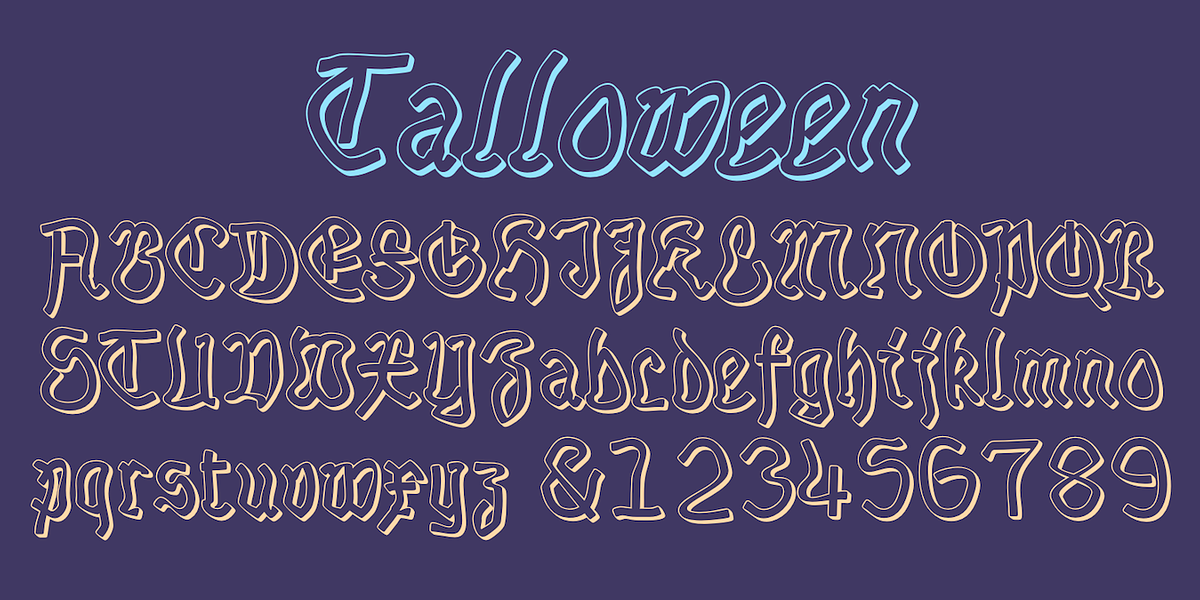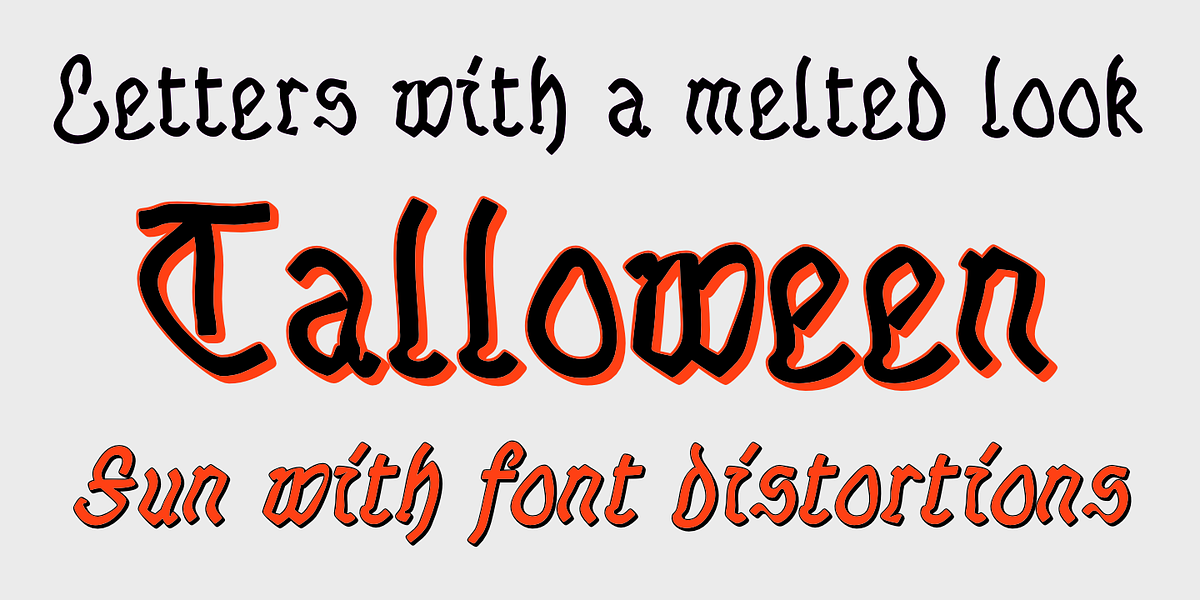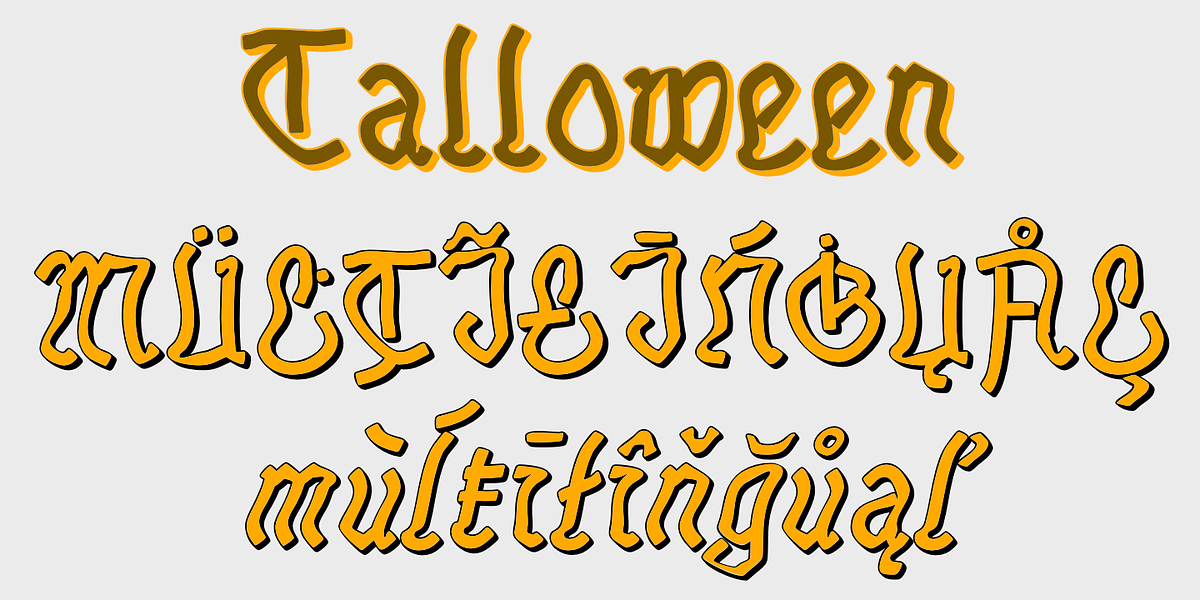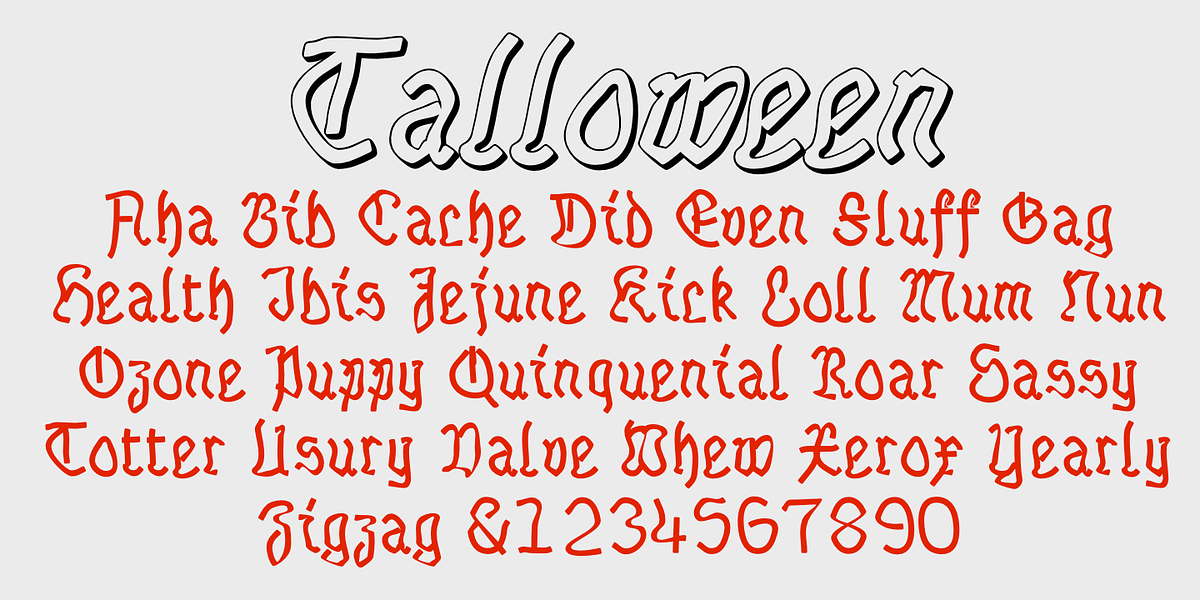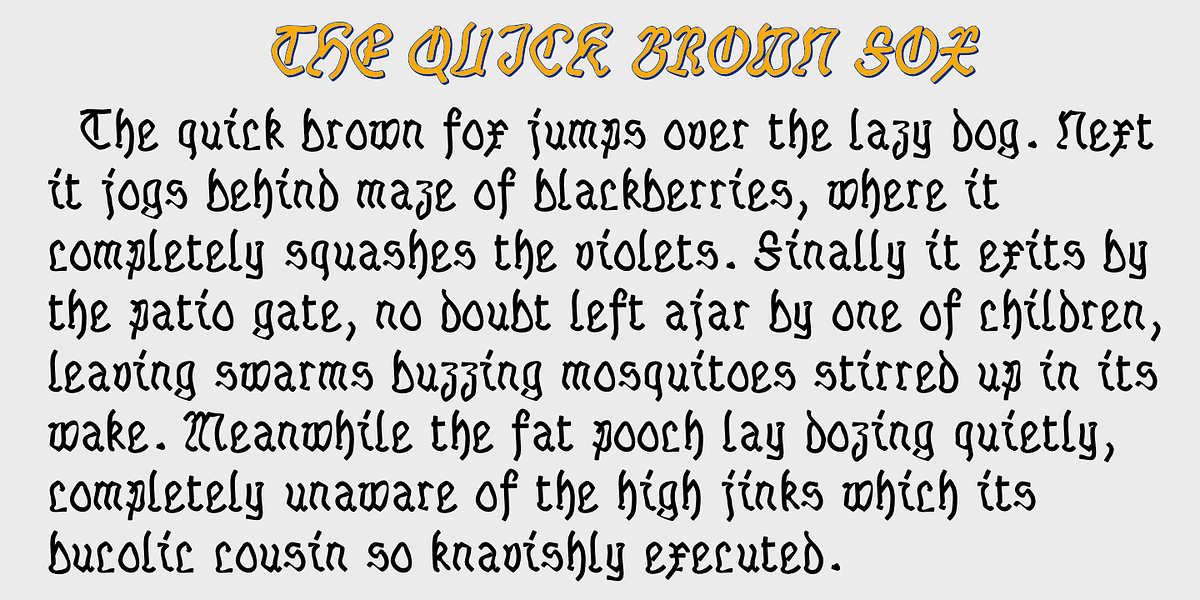
Talloween
Talloween is a unique display font inspired by Halloween. Its letters are styled in a blackletter form but appear as if they were crafted from melting wax, giving them an uneven and somewhat distorted look. It comes in four variations: regular, oblique, shadow, and oblique shadow.